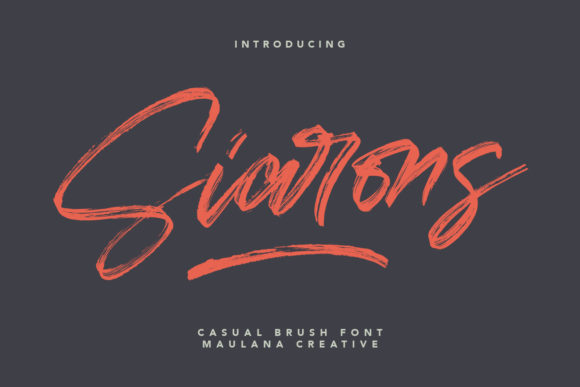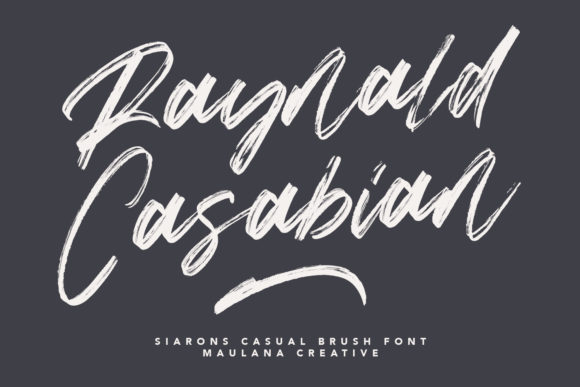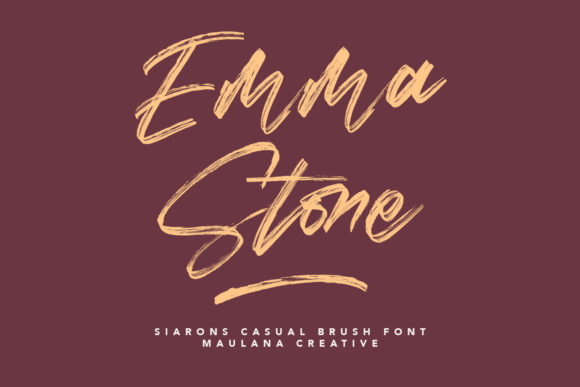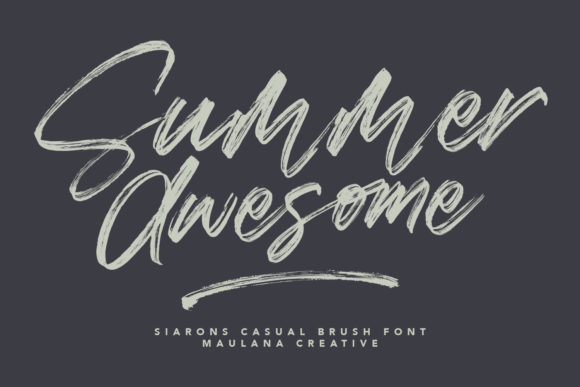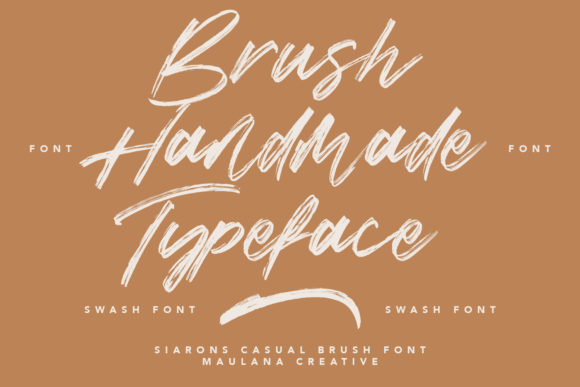
Siarons Font
About Siarons Font
Siarons is a unique handwritten font, created with the help of a rough brush pen. It is suitable for creating any branding, product packaging, invitation, quote, t-shirt, label, poster, logo that you wish to develop.